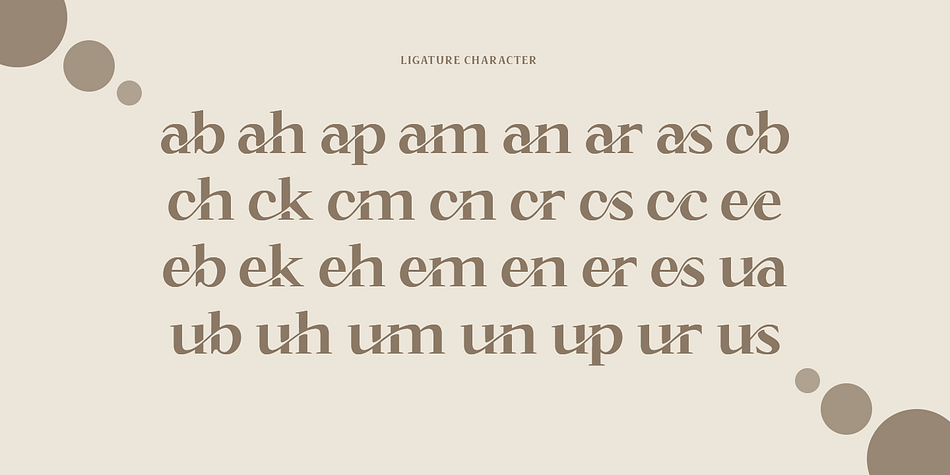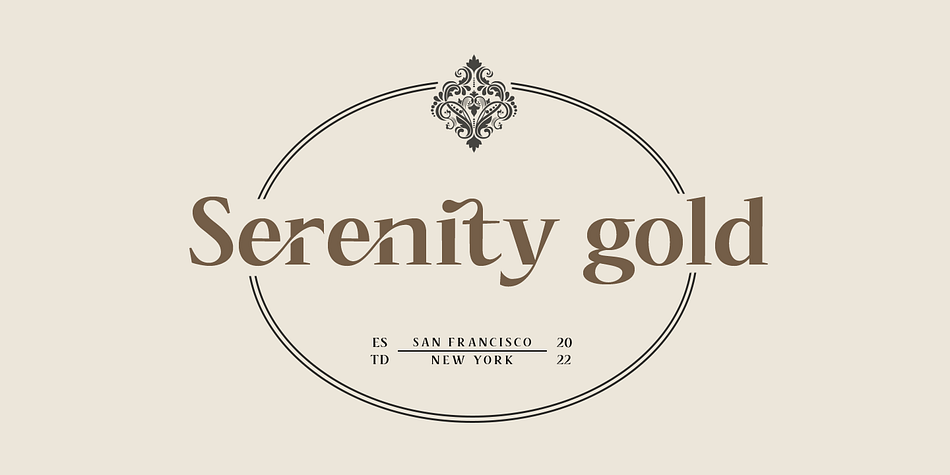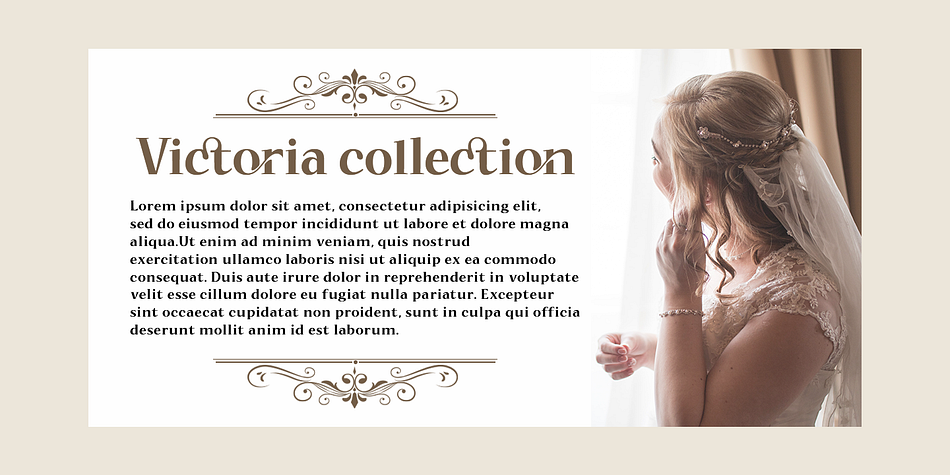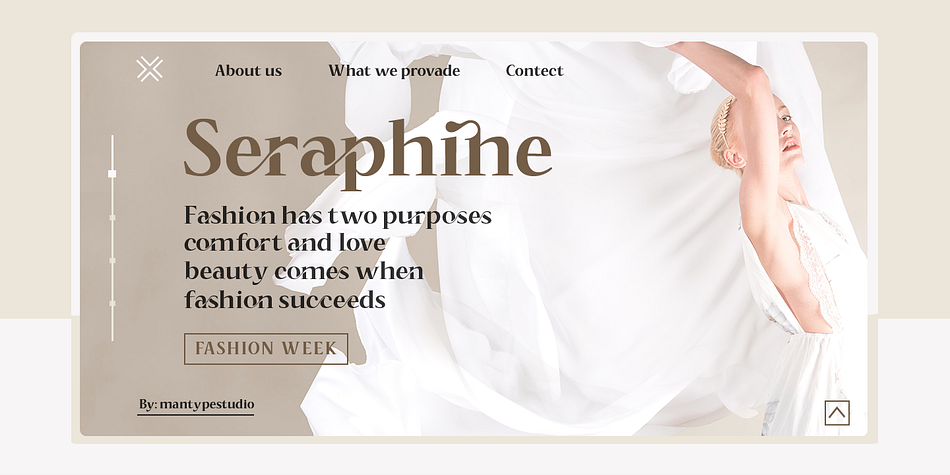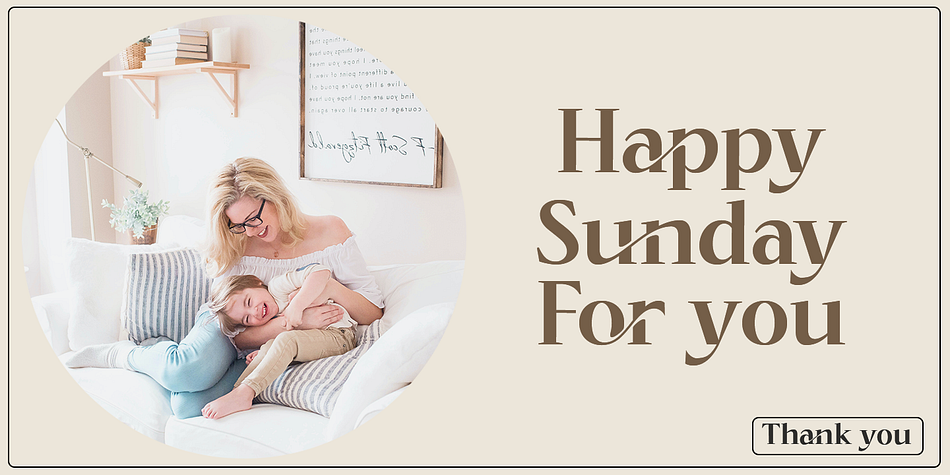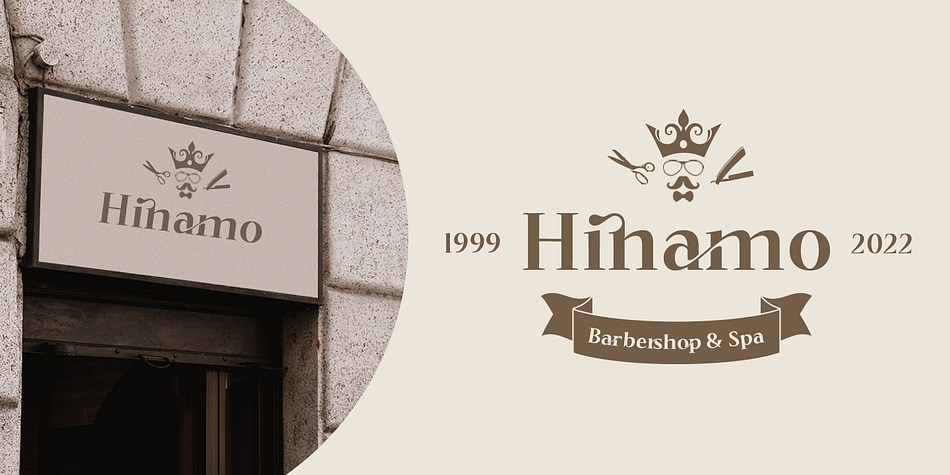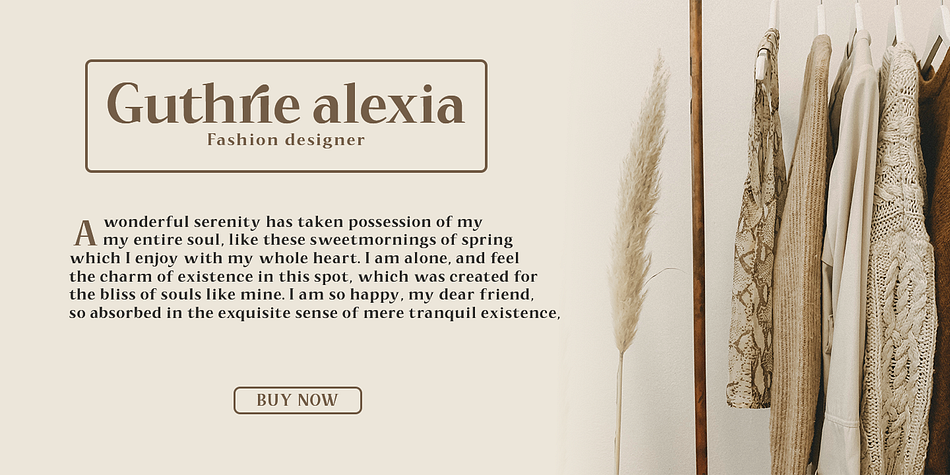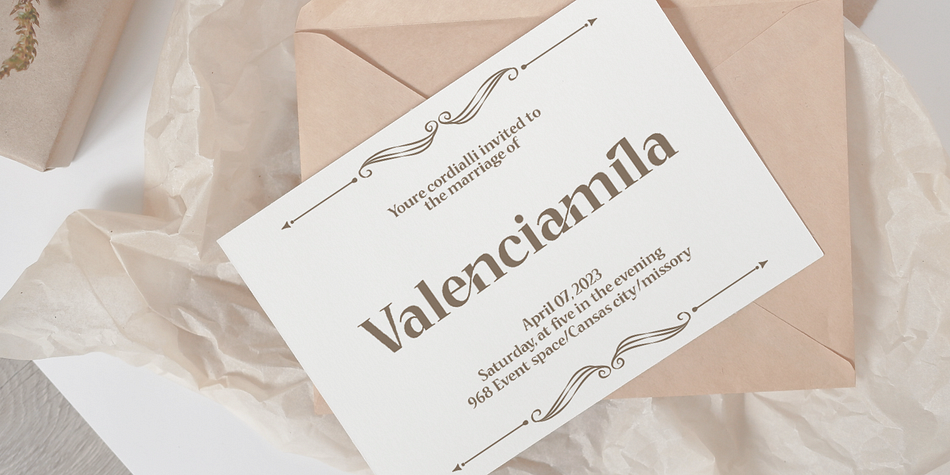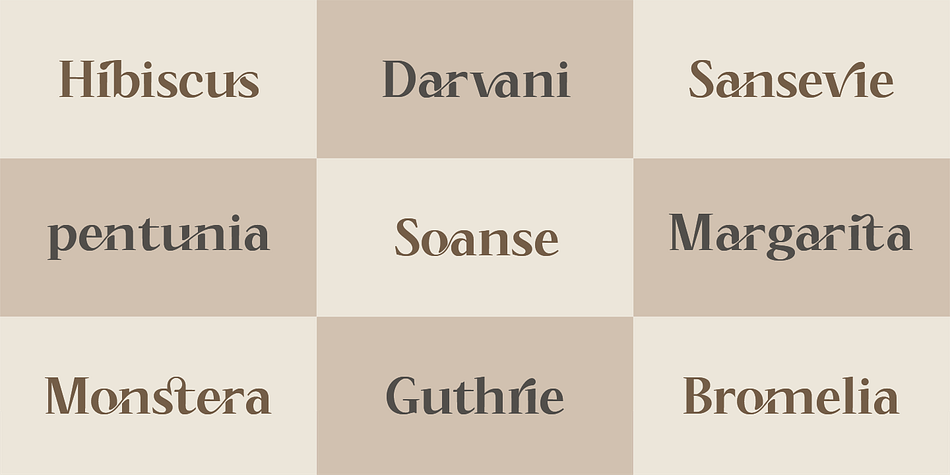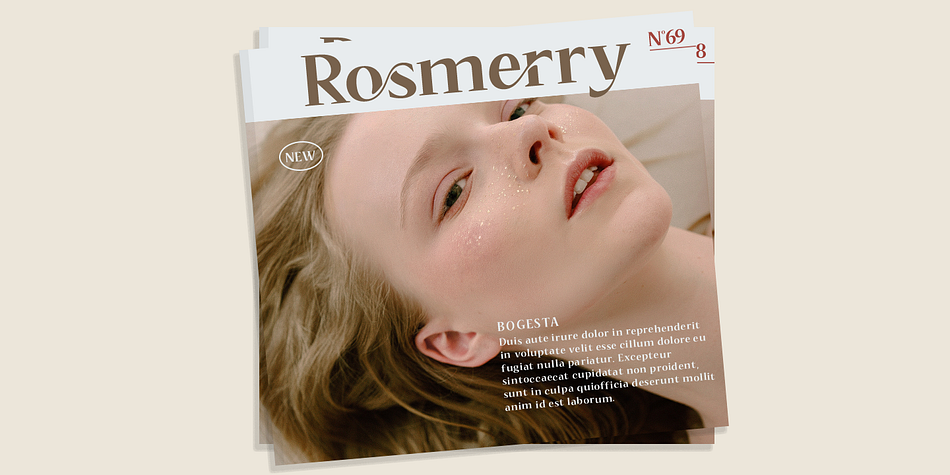
Bogesta
Bogesta is a display serif font family published by Mantype Studio.
Bogesta Typeface - Stylish OpenType rich serifs with letters that seem to dance and swirl harmoniously together - to form unique & elegant typographic designs.
The wide selection of interwoven binders and Opentype alternatives means lots of choice and variety in your final look.